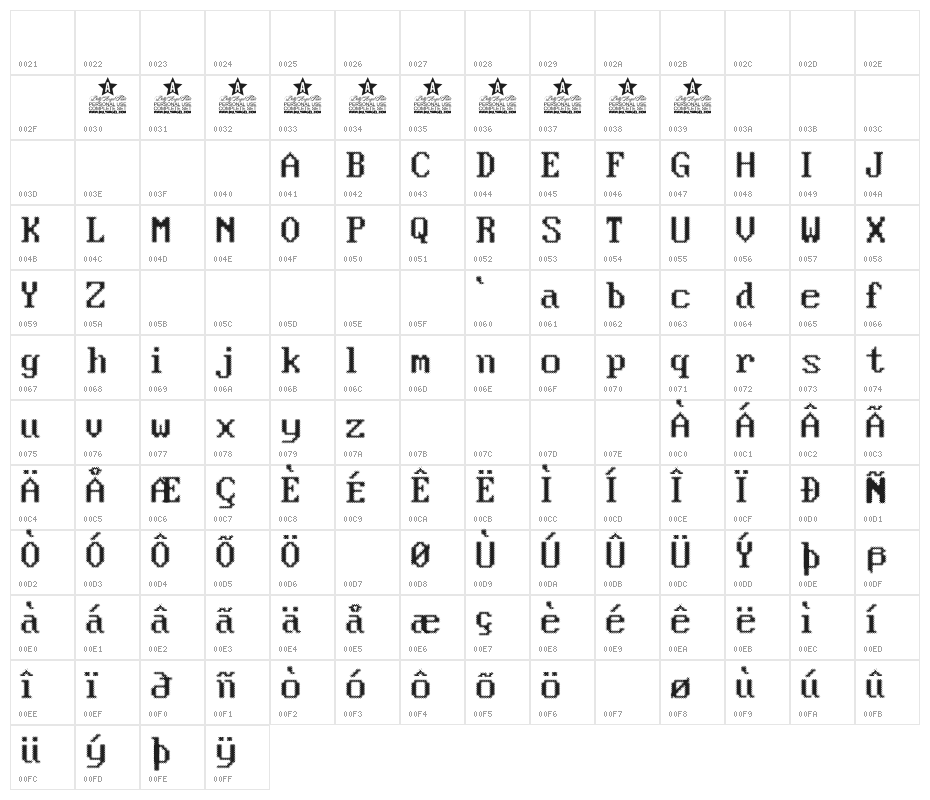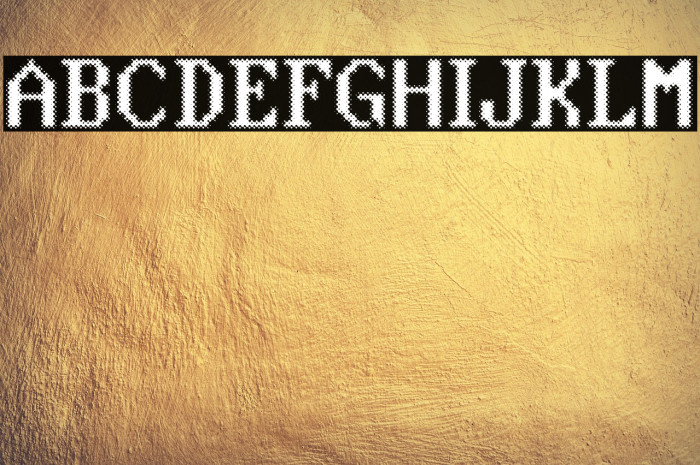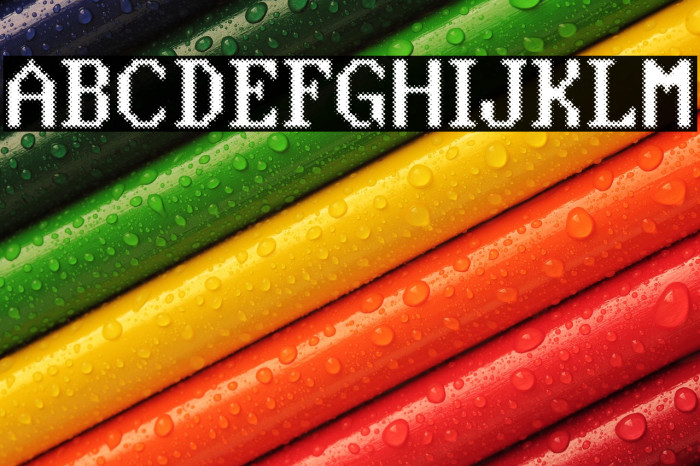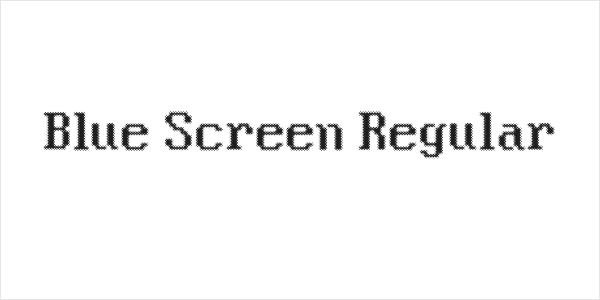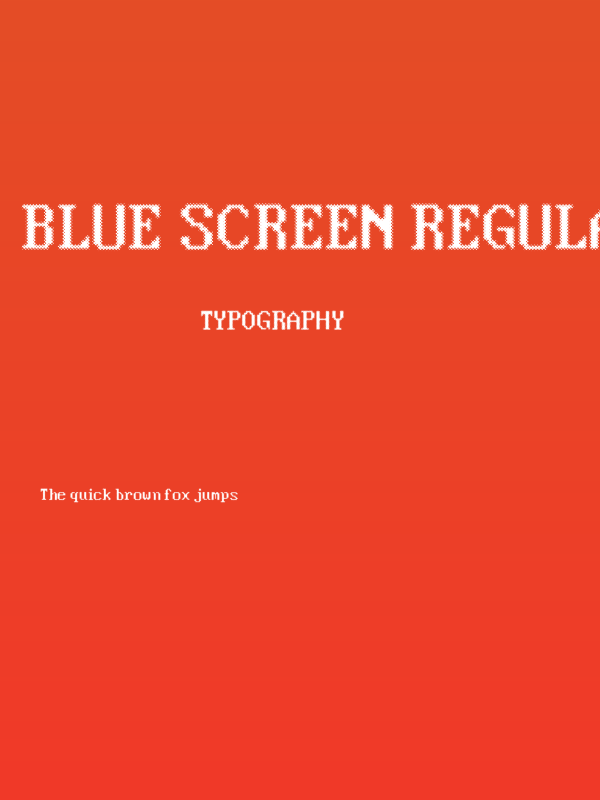
Blue Screen Regular Font
Blue Screen Regular Description
This font features a pixelated, retro style reminiscent of early digital displays. Each character is composed of small, block-like elements that create a distinct, textured appearance. The uppercase and lowercase letters maintain a consistent design, with angular edges and a uniform height. The numbers and special characters follow the same pixelated pattern, ensuring a cohesive look across all glyphs. This font evokes a sense of nostalgia for vintage computing and gaming, making it ideal for projects that aim to capture that era's aesthetic.
| Overall Style | Vintage |
| Use Case | Logos, Headlines, Digital Art |
| Proposed Projects | Ideal for retro-themed designs, video game graphics, digital art projects, and nostalgic branding. |